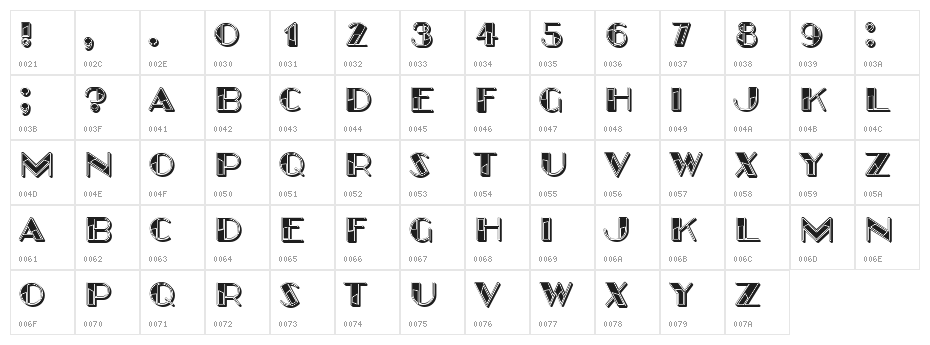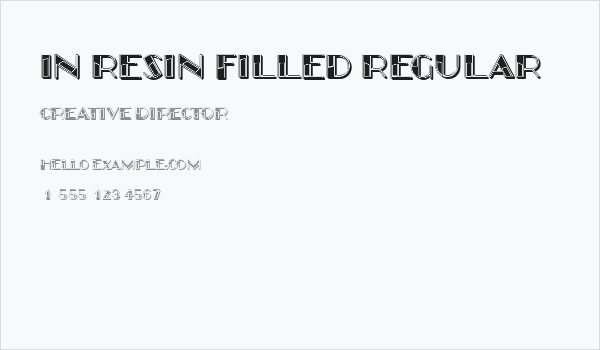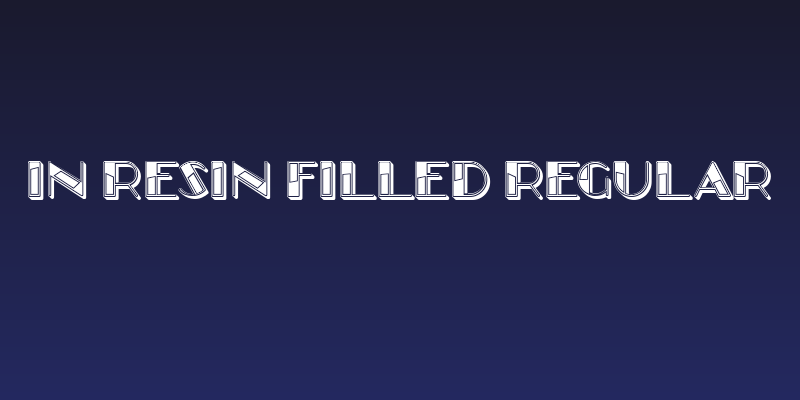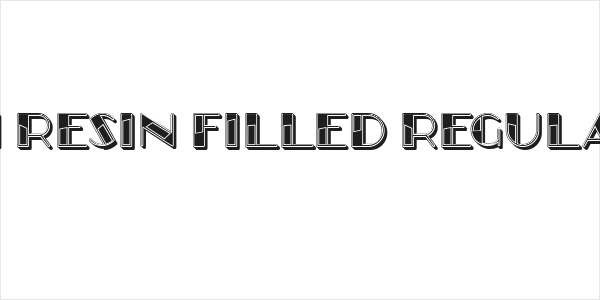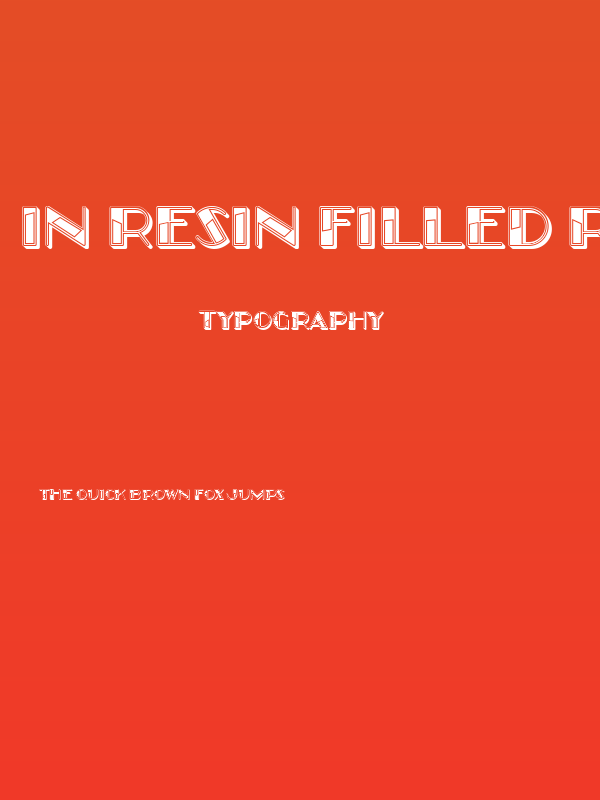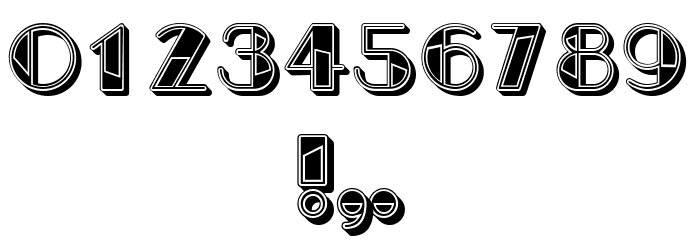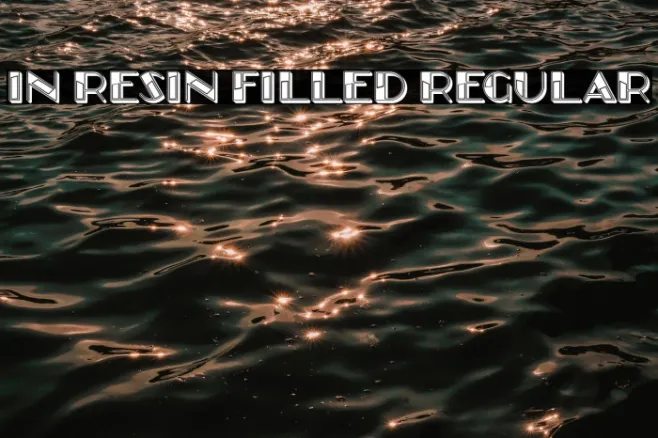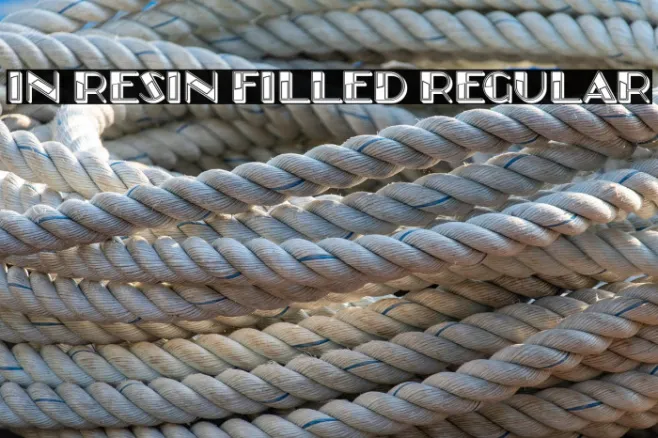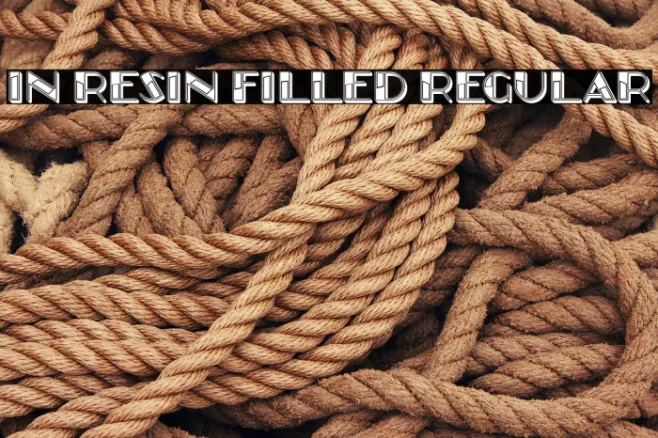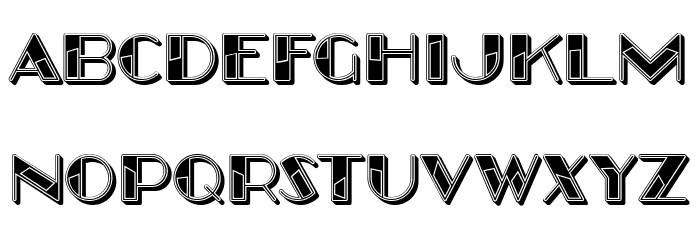
In Resin Filled Regular Font
In Resin Filled Regular Description
This font features a bold, geometric design with a unique resin-filled appearance. The characters are outlined with a thick border, creating a striking contrast between the filled and unfilled spaces. The style is reminiscent of art deco influences, with clean lines and a modern twist. Each letter and number is distinct, with angular edges and a consistent width throughout. The special characters maintain the same bold and structured aesthetic, making this font suitable for eye-catching designs.
| Proposed Projects | Ideal for branding, posters, and signage where a bold statement is needed. |